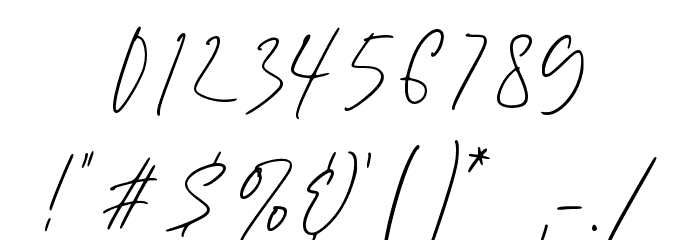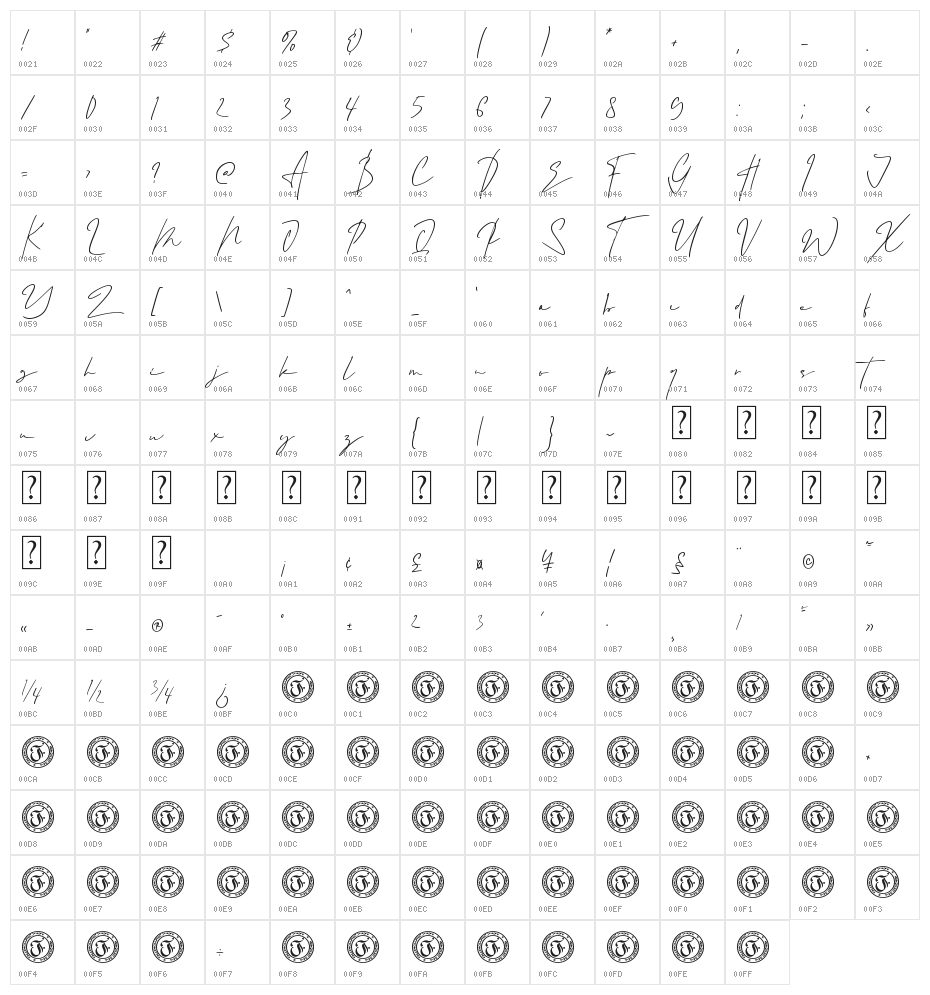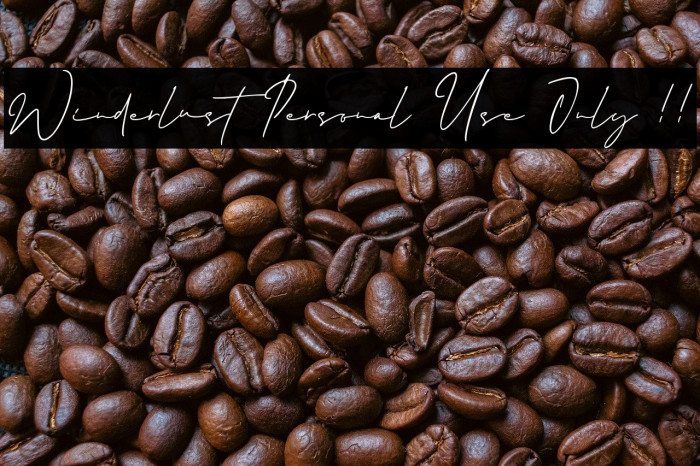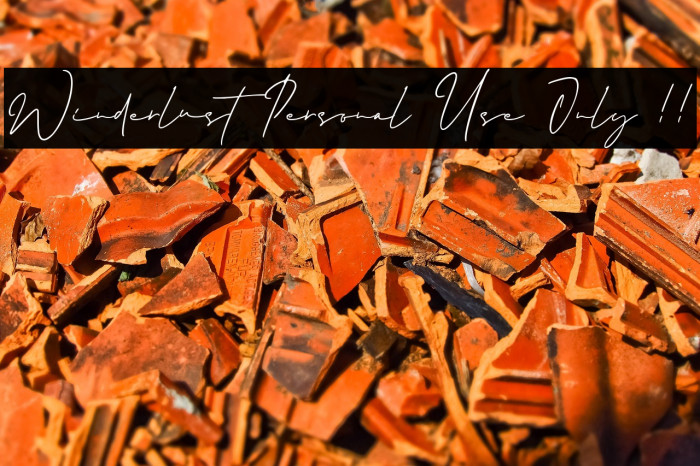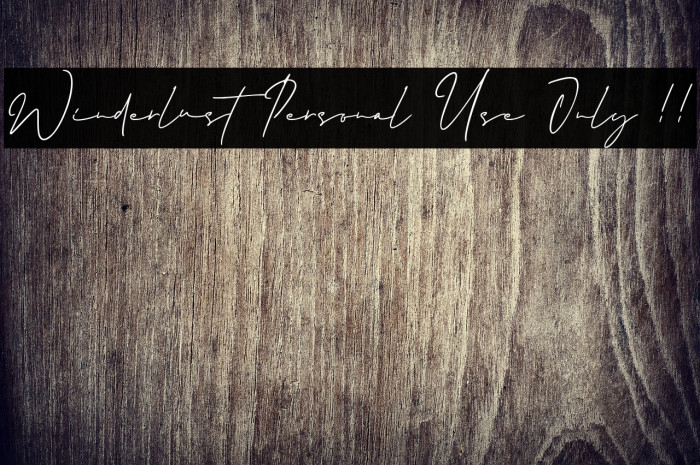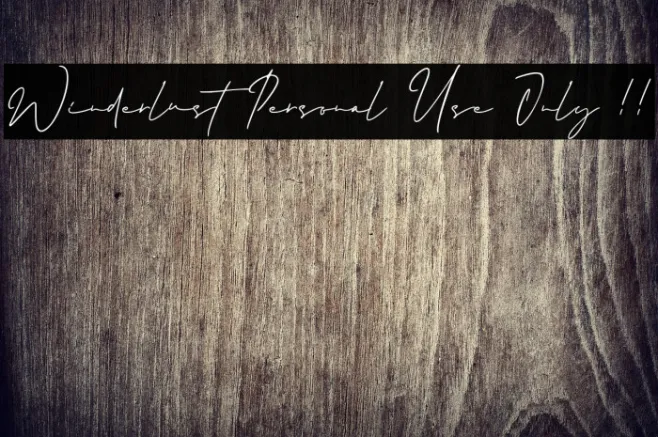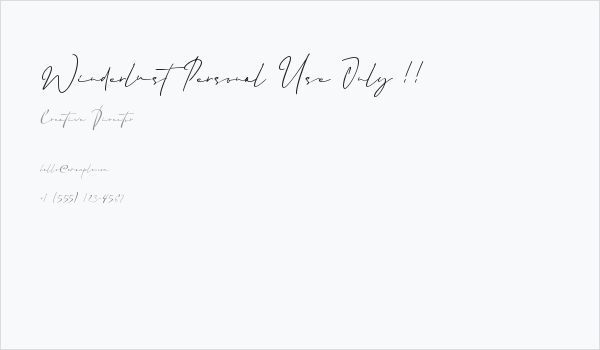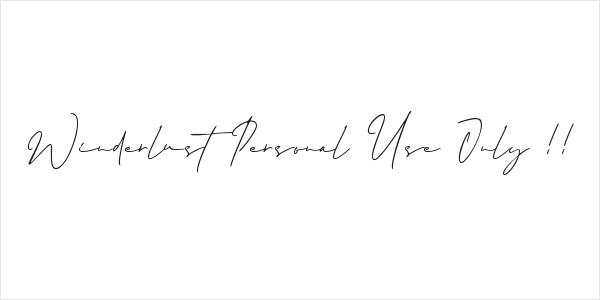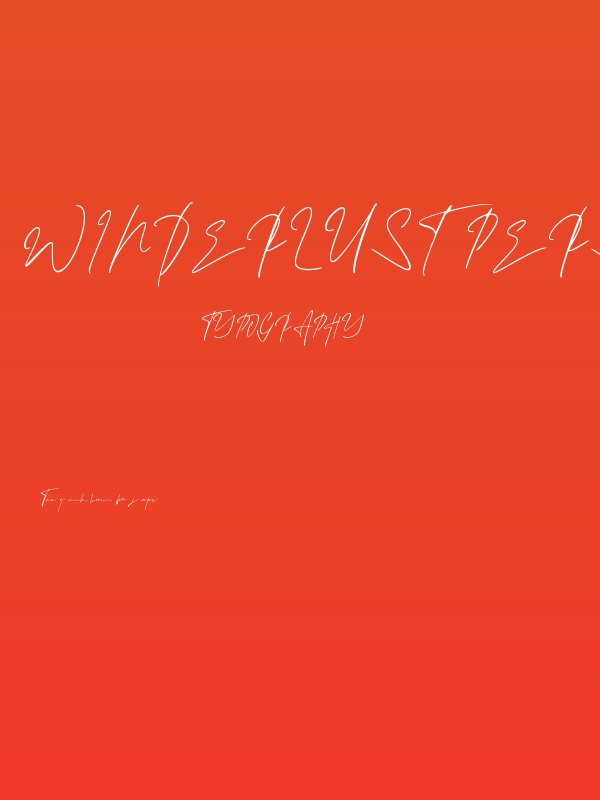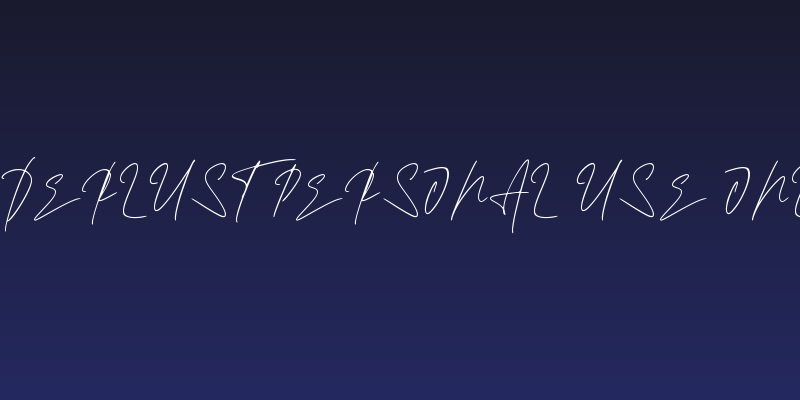
Winderlust Personal Use Only !! Font
Winderlust Personal Use Only !! Description
This font features a flowing, handwritten style that exudes a sense of elegance and personal touch. The letters are connected in a cursive manner, with smooth curves and varying stroke thicknesses that mimic natural handwriting. The uppercase letters maintain a consistent height, while the lowercase letters exhibit a playful variation in size and slant. Numbers and special characters are designed to complement the overall script style, maintaining the same fluidity and grace. This font is ideal for projects that require a personal or artistic flair, such as invitations, greeting cards, or branding materials that aim to convey warmth and creativity.